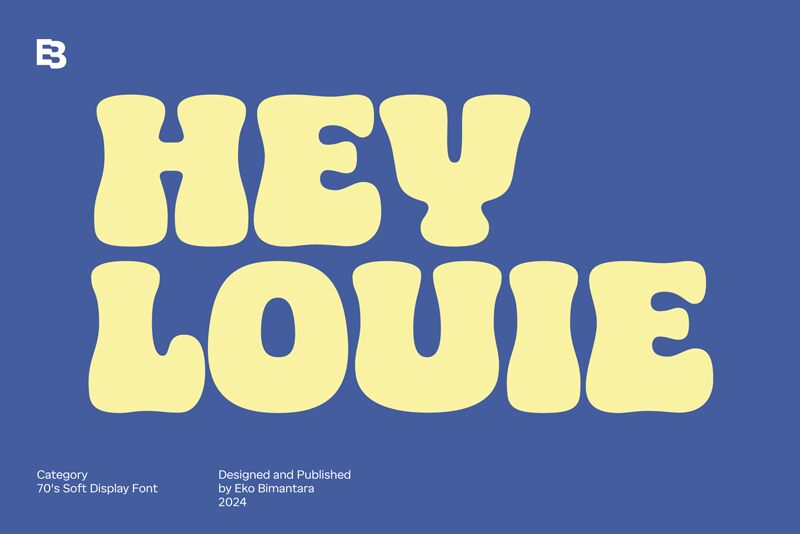
Hey Louie font is a bold display typeface designed by Eko Bimantara, infused with a groovy essence that captures attention effortlessly. Its whimsical curves and exaggerated forms create an undeniable sense of playfulness, making it ideal for projects that embrace creativity and vibrancy. The distinctive boldness of the characters provides an energetic aesthetic, evoking a retro vibe while remaining refreshingly modern.
This font shines in various design contexts-from eye-catching posters and lively branding to dynamic social media graphics. Its unique style is particularly suited for capturing youthful exuberance or conveying a sense of fun, ensuring that any message stands out with flair. Whether used for events, merchandise, or digital content, Hey Louie guarantees to leave an impression that resonates with audiences.